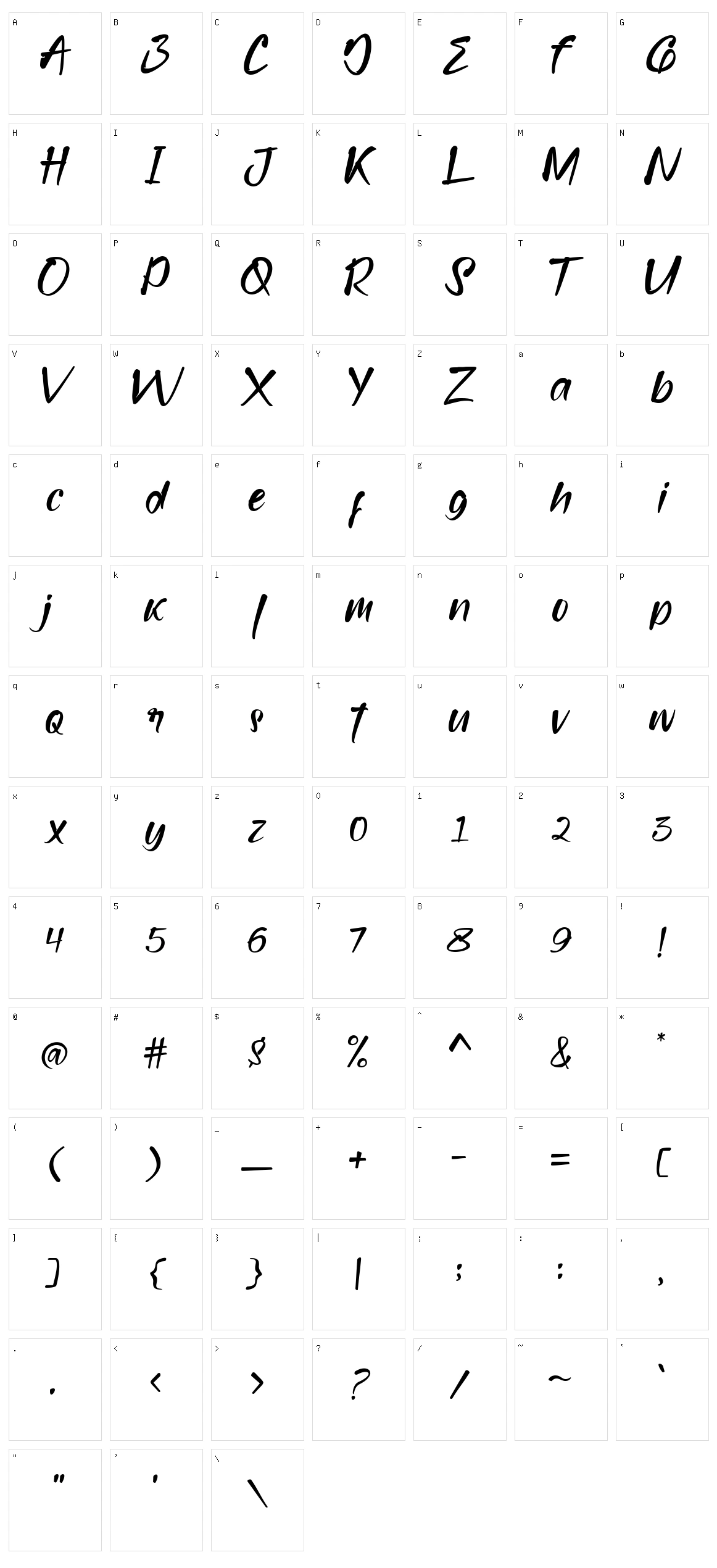
The free font Bridamount is carefully designed by Glyphstyle, showcasing a thoughtful balance of creativity and usability and falls under the Script font style. When you download the ZIP file, it contains only 61.15 KB of font files, making it lightweight and quick to download. Please review the license details below to understand permitted usage and distribution rights. If license information is not available, we recommend using this font for personal projects only or contacting the author directly for commercial usage permissions.